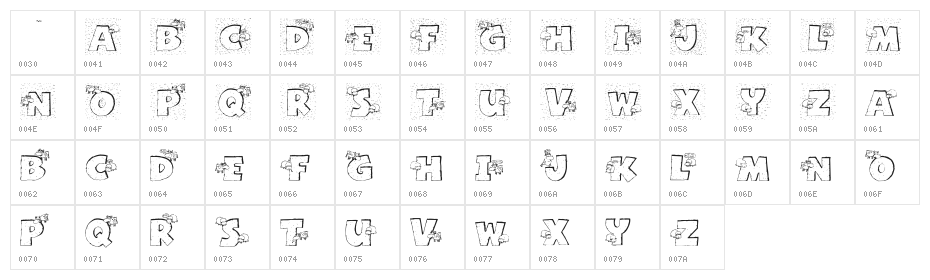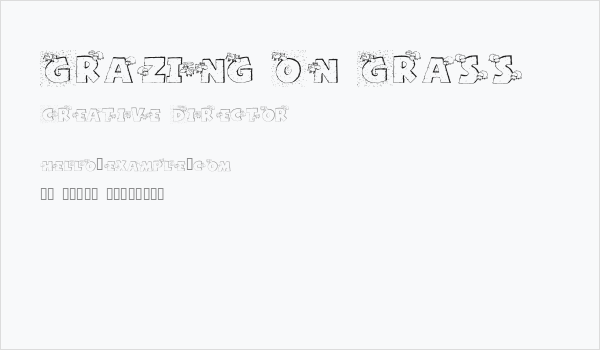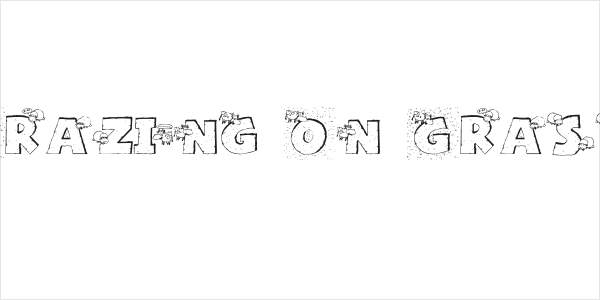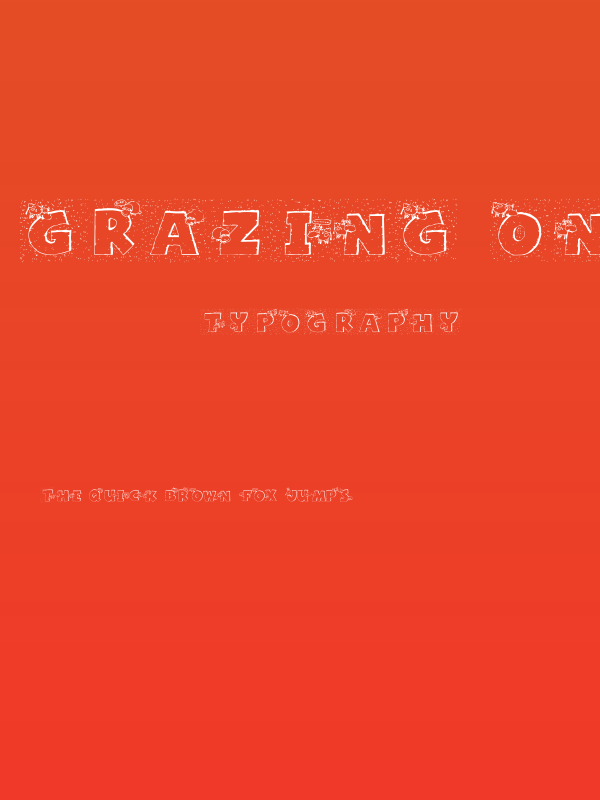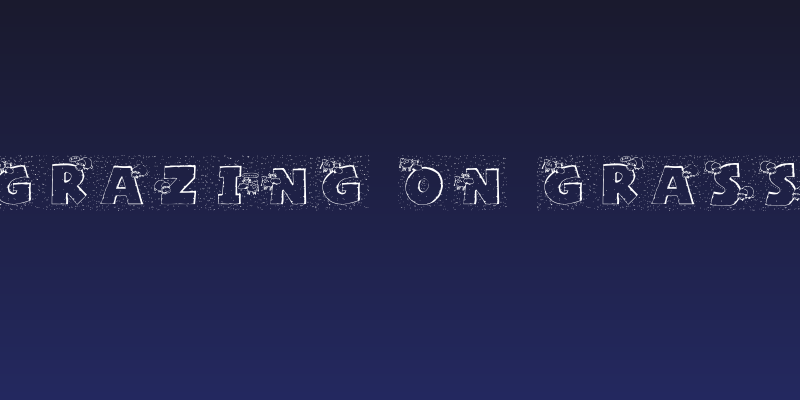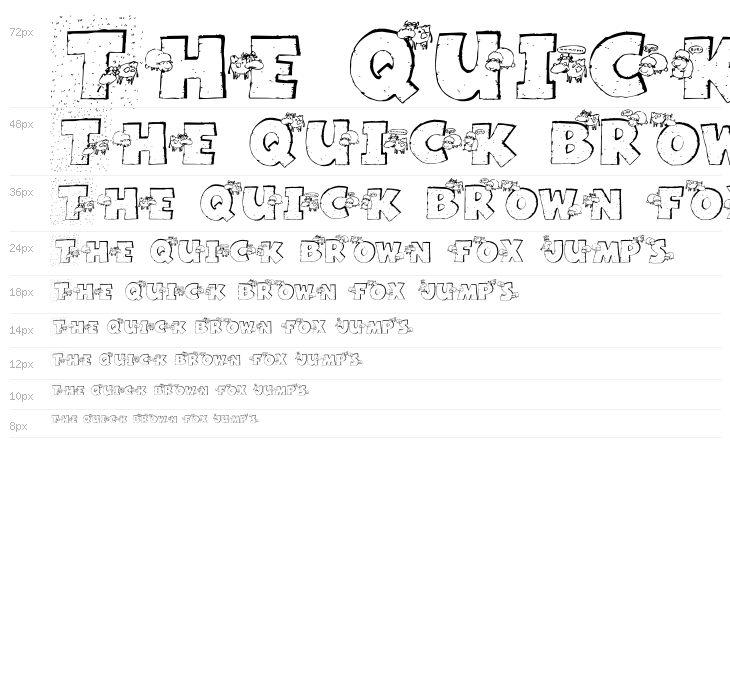
Grazing On Grass Font
Grazing On Grass Description
This playful and whimsical font features uppercase letters adorned with grazing cows, creating a unique and humorous design. Each letter is crafted with a bold, blocky style, providing a strong visual impact. The cows are integrated into the letters, adding a textured, illustrative element that makes the font stand out. The overall appearance is both rustic and charming, making it ideal for projects that require a touch of fun and creativity. The font's distinct style is perfect for children's books, farm-related branding, or any design that seeks to evoke a sense of countryside charm.
| Overall Style | Whimsical, Rustic |
| Proposed Projects | Ideal for children's books, farm branding, playful posters, and creative invitations. |